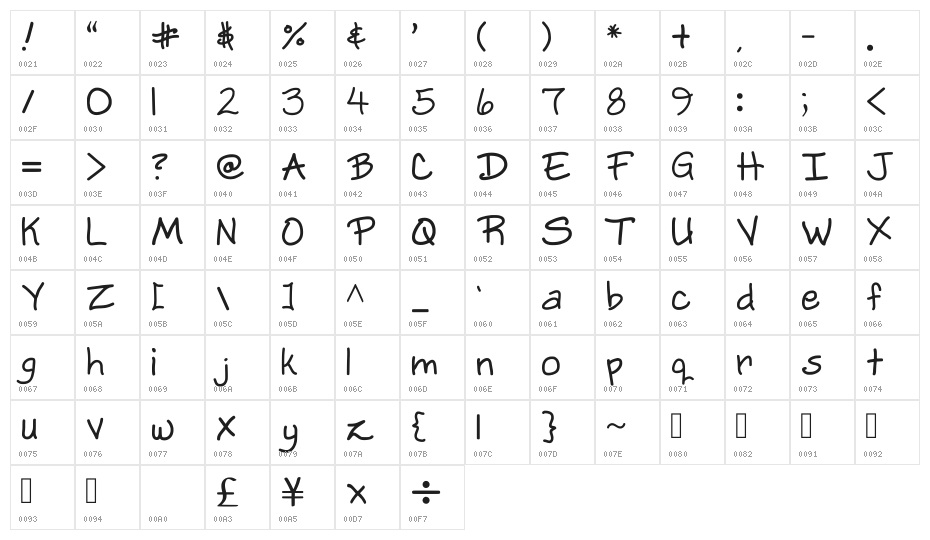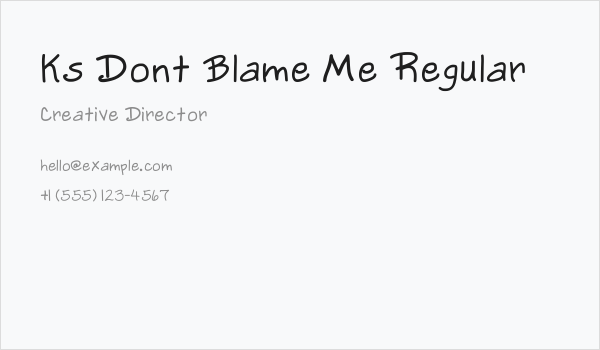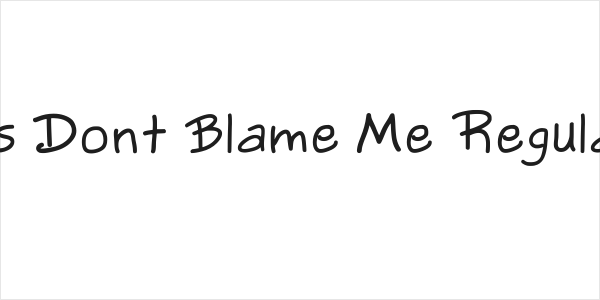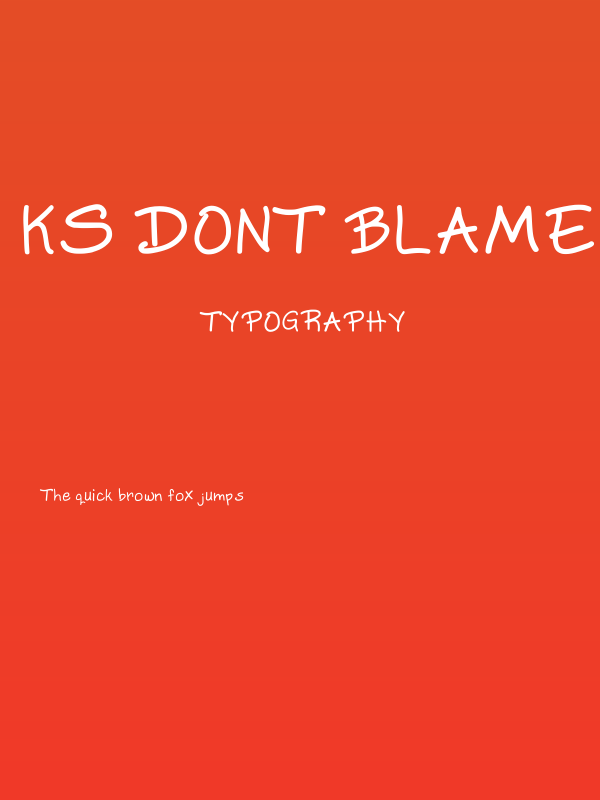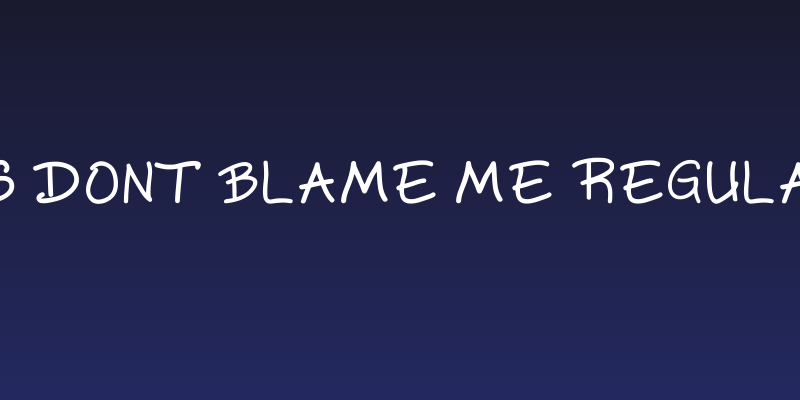
Ks Dont Blame Me Regular Font
Ks Dont Blame Me Regular Description
This font features a playful and casual handwritten style, characterized by its smooth, flowing lines and slightly irregular shapes. The letters have a natural, organic feel, with varying stroke widths that add to its informal charm. The uppercase and lowercase letters maintain a consistent style, with rounded edges and a slight slant, giving it a relaxed and approachable appearance. The numerals and special characters are designed to match the overall aesthetic, ensuring a cohesive look across all text. This font is perfect for projects that require a personal touch or a friendly, informal vibe.
| Use Case | Headlines, Informal text, Personal projects |
| Proposed Projects | Ideal for greeting cards, invitations, personal blogs, and any project needing a friendly, informal touch. |